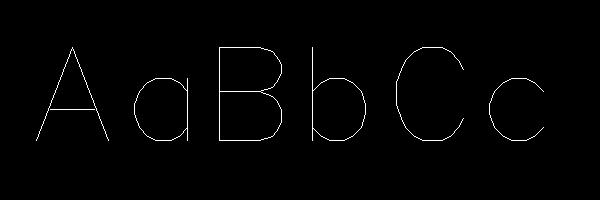
I am looking for Fonts that a bit more fancy or unusual than the normal ones. I will use these for graphic applications. I am looking for fonts that maybe look like handwriting or fonts not of the very ordinary and commonly seen Ariel, Times New Roman, Gothic, type. Any suggestions?
Vector based fonts?
I will use these for graphic applications.
SingSing, Dafont does have vector fonts. They're just mixed in with everything else. Great site.
Conquest10, vector fonts are just vector created images stored as a font. Like typing D gives you a DVD logo, etc.. -
Oh, so you mean dingbats. The vector-based confused me as fonts are made up of vectors.
I've always though of Vector Fonts as CAD or drafting fonts. Fonts drawn as a collection of lines...
Here's Simplex in AutoCAD: